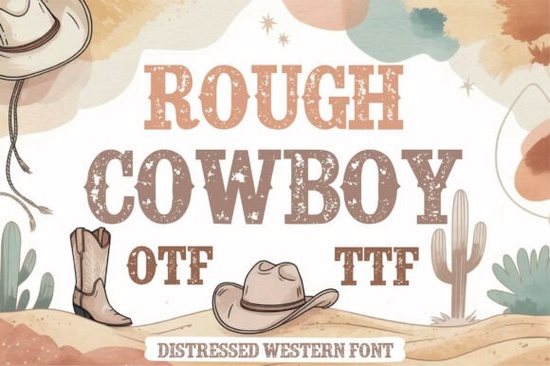
If you're working on a western-themed project and need a typeface that actually looks rugged and authentic, the Rough Cowboy Font is worth a close look. It's a bold distressed slab serif font with a worn texture that gives it a genuine vintage cowboy feel without you having to do any extra distressing work in Photoshop.
Whether you sell on Etsy, run a small brand, or just love crafting, this font fills a gap that clean modern typefaces can't. Let's break down what makes it useful and who it's really for.
What Makes This Western Font Different from Others?
There are plenty of western-style fonts out there, but many of them fall into two camps: either too clean and generic, or so distressed that they're hard to read at smaller sizes. Rough Cowboy strikes a solid middle ground. The slab serifs give it structure and readability, while the worn texture adds character without sacrificing legibility.
Here's what stands out:
- Bold, heavy letterforms that grab attention on posters and merchandise
- Distressed edges and worn texture built into the font itself no extra editing needed
- Strong slab serif design rooted in traditional western typography
- Clean spacing that works well even at headline sizes
Fonts like Outlaw Font or Frontier Font lean heavily into the western style too, but each has a different personality. Rough Cowboy leans into that weathered, lived-in look that feels like it belongs on an old barn door or a vintage rodeo poster.
Who Is This Font a Good Fit For?
This typeface works well for a wide range of creative projects. Here are some of the people and use cases where it really shines:
- Print-on-demand sellers designing t-shirts, hoodies, and mugs with western or country themes
- Small business owners building rustic branding for ranches, BBQ joints, breweries, or outdoor adventure companies
- Crafters and hobbyists making sublimation designs, vinyl decals, or Cricut projects
- Graphic designers working on event posters, rodeo flyers, or country music promotions
- Etsy shop owners creating digital downloads with a western or farmhouse aesthetic
If your audience responds to rugged, Americana-style visuals, this font gives you a strong starting point.
What Projects Does It Work Best For?
Rough Cowboy is a display font, which means it's designed for headlines and large text, not body copy. That's an important distinction. You wouldn't use it for a paragraph of product description, but it's great for:
- Logo design and wordmarks
- T-shirt typography and quote designs
- Poster and flyer headers
- Product packaging for rustic or handmade goods
- Social media graphics and banners
- Sublimation blanks and drinkware designs
Pair it with a clean sans-serif or a simple script font for supporting text. Fonts like Rodeo Font or Country Font can complement it well if you're building a full western-themed design system.
Does the Distressed Texture Hold Up at Different Sizes?
Yes, and this is one of the stronger points of the design. The distressing is detailed enough to look convincing on a large poster but not so fine that it disappears or turns muddy on a t-shirt mockup or small sublimation print.
That said, at very small sizes (under 14pt), the texture may start to blend together. For anything small, you'll want to pair it with a simpler secondary font for readability.
- ✅ Test the font at the exact size you plan to use it
- ✅ Pair it with a simple, readable font for supporting text
Western-themed designs continue to be popular across Etsy, Amazon Merch, and local branding projects. If you regularly create in this niche, having a few solid distressed western fonts in your toolkit starting with a reliable option like this one saves you time and keeps your work looking authentic.